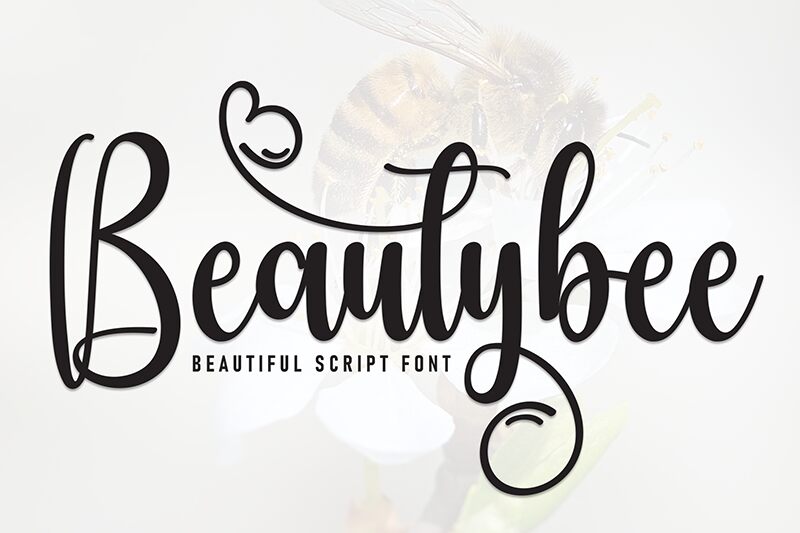
Beautybee
Beautybee font from Andi Moz is a free handwritten font that finds its inspiration in flowing script. It is sophisticated yet simple and modern with a little calligraphy influence. The elegant typeface can also be considered expressive to an extent thanks to wavy baseline, inconsistencies, and translating into visually rich meaningful messages.
Beautybee suits every context where elegance is required whether invitations or greeting cards are on the line. Wedding favors, stationery, typography prints such as logotypes are a good fit as well. Magazine covers are another use case where Beautybee can excel together with more unusual contexts such as books or product packaging.